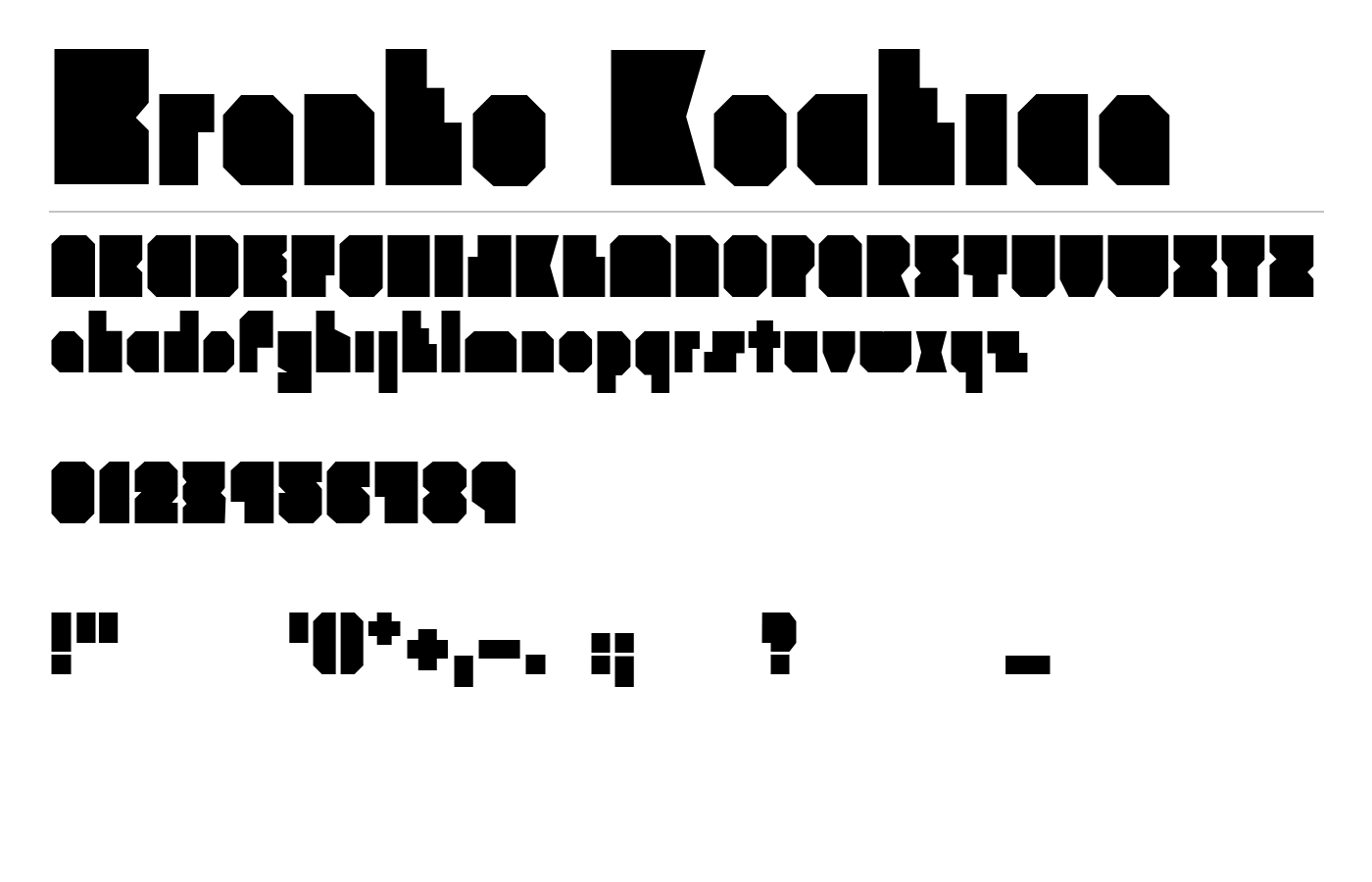
Branko Kockica is a bold, blocky sans serif font with a strong geometric and modular design characterized by sharp angles and thick strokes. Its heavy weight and condensed width give it a powerful, industrial feel, making it ideal for eye-catching headlines, logos, and branding where a modern, edgy statement is desired. This font suits creative projects that need a striking, unconventional look with a touch of urban attitude.
Branko Kockica Font